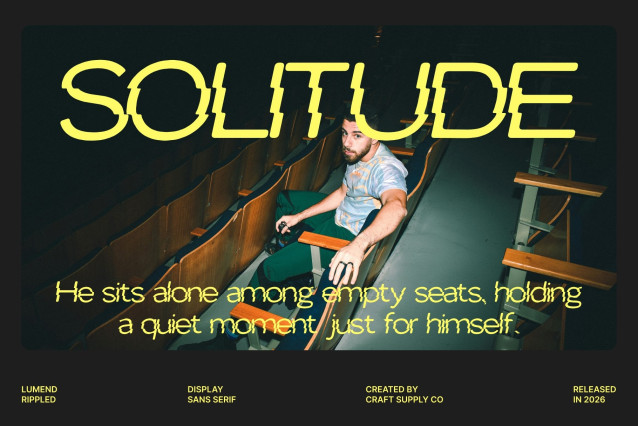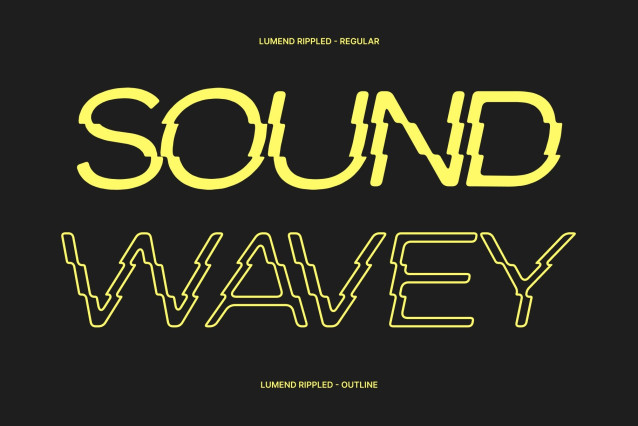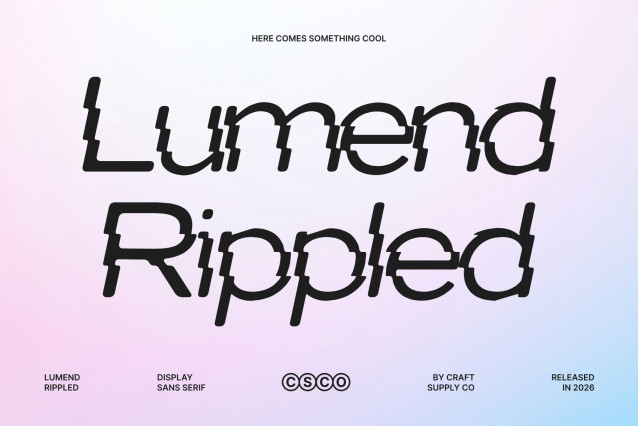
Lumend Rippled Font
Lumend Rippled – Modern Sans Serif Font with Fluid Grotesque Style
Sleek and Contemporary Design
This is a modern sans serif font featuring a refined grotesque influence and a sleek contemporary aesthetic. Defined by clean lines, minimalist construction, and balanced proportions, the font delivers a fresh and highly versatile visual identity. Its modern appearance feels professional yet approachable, making it suitable for a wide range of creative and functional applications.
Versatility for Text and Display Applications
Designed for flexibility, this font performs exceptionally well in both body text and headline settings. Its carefully crafted letterforms ensure excellent readability in long paragraphs while maintaining enough strength. This balance between functionality and visual presence allows the font to adapt seamlessly across editorial layouts, branding systems, websites, and promotional materials.